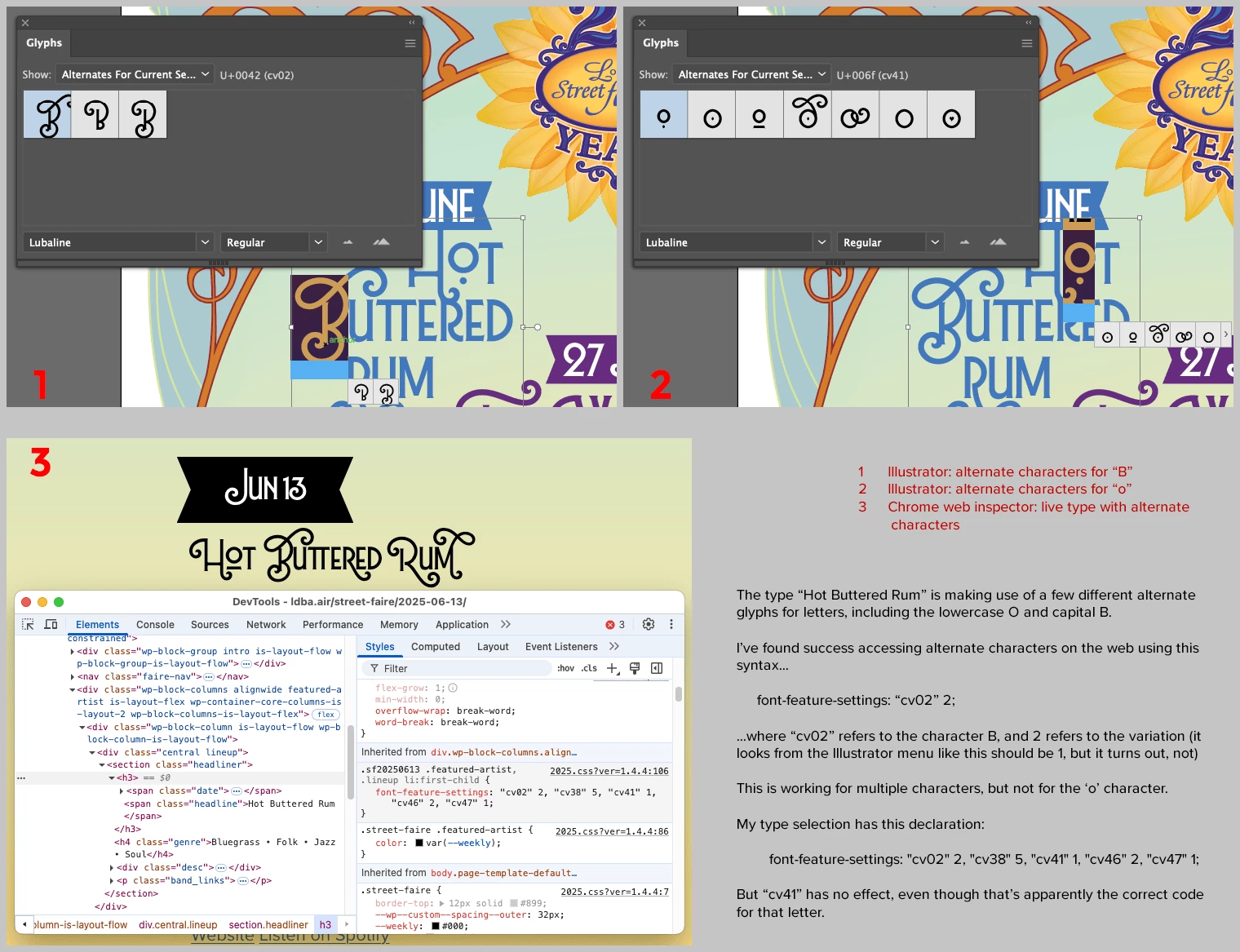
Lubaline Open Type web font is missing glyph support for the letter 'o'
In Illustrator, we can access alternate glyphs for certain letters. Lubaline is delightful in this regard, and offers lots of playful options.
On the web, I have started using the CSS declaration “font-feature-settings” to access these glyphs, and I am able to bring these design elements in as live type. Very exciting!
Discovering the correct character variant codes for font-feature-settings took some hunting, but I've started dialing it in with success.
But I noticed — the options for the lowercase O are missing. It should relate, I believe to 'cv41', so that if I wrote the following CSS I would change the glyph for that letter:
font-feature-settings : "cv41" 1
See attached for more info. Any chance that this can be fixed?
To access that specific variant of the o you'll have to turn off the calt feature. Also, the variant has index 6. See HTML snippet attached.
Great, thank you so much for getting back to me quickly! This solution is *a way* to get there, which I appreciate. Now that I see it, I realize that in my case, I DO want contextual alternates AND that o. But at least there is a way to get to it!! Lubaline is definitely a wacky case...